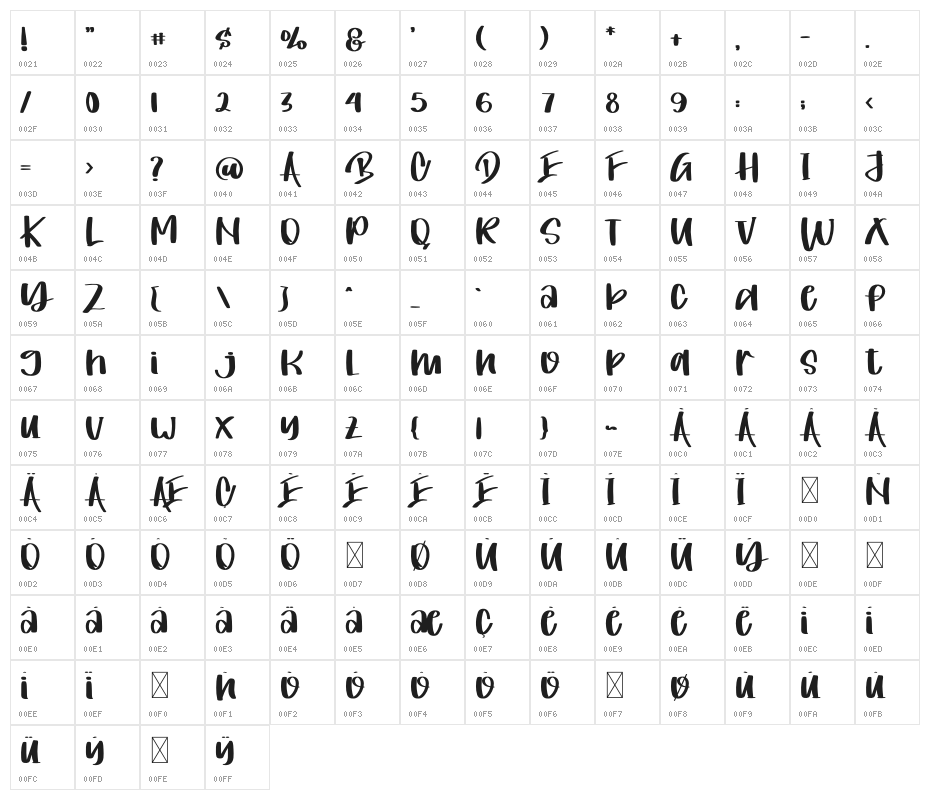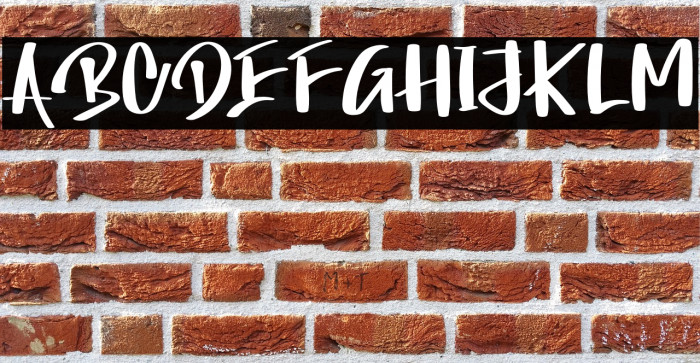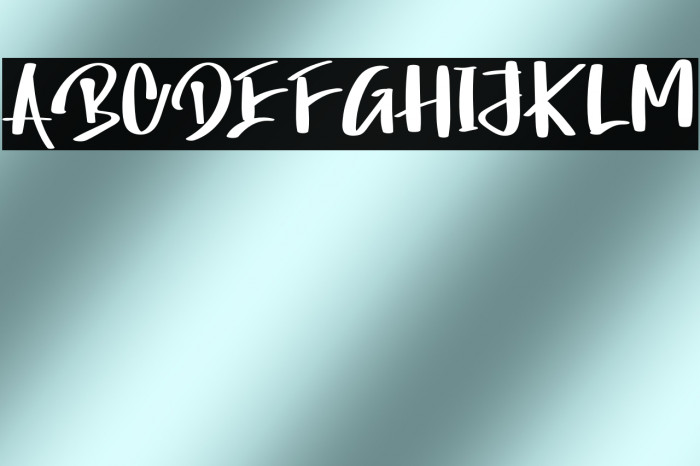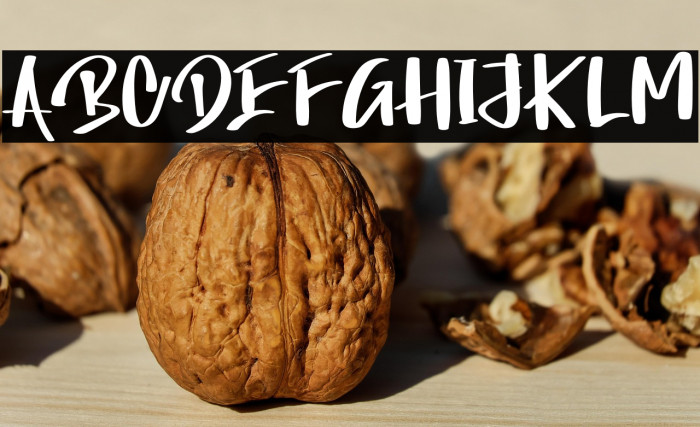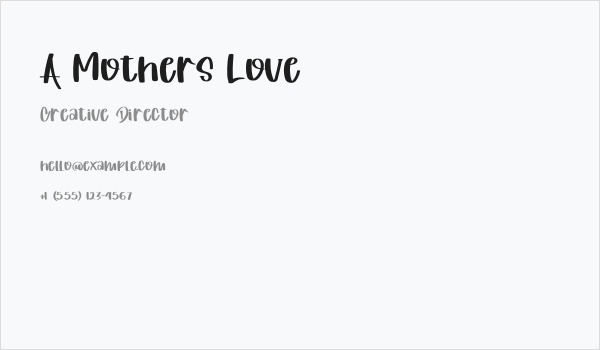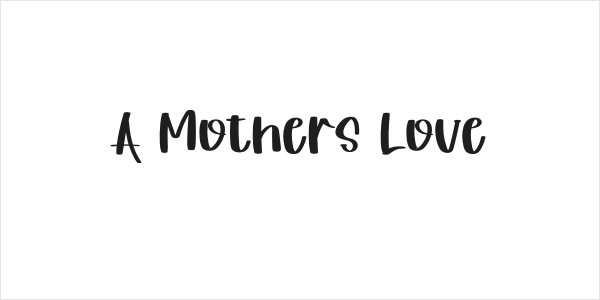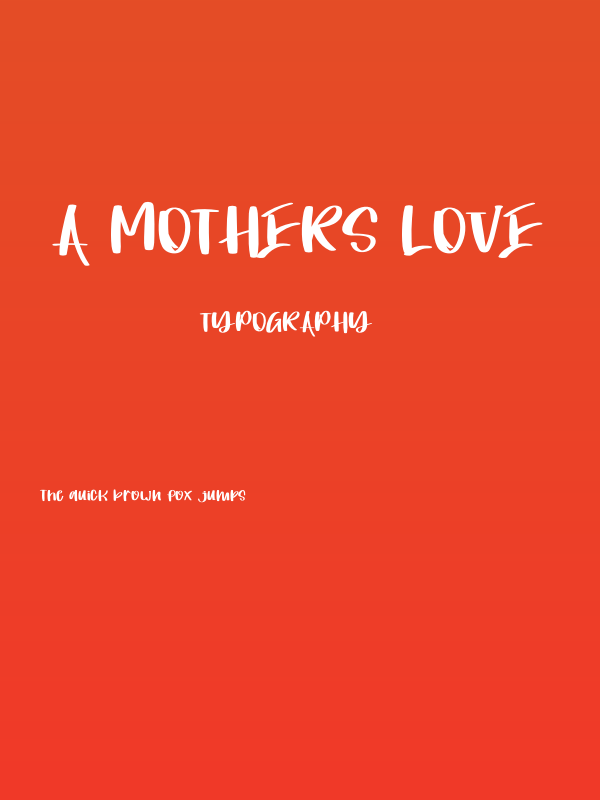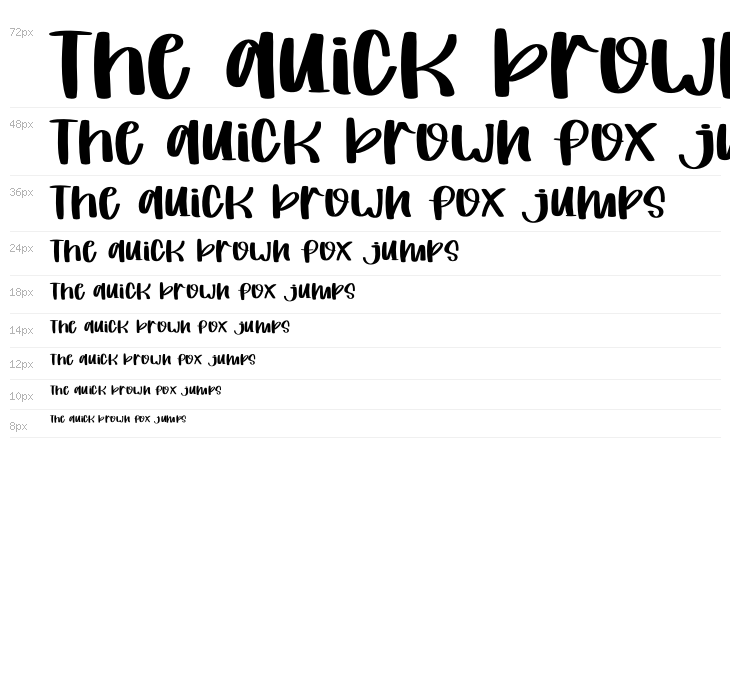
A Mothers Love Font
A Mothers Love Description
This font exhibits a bold and expressive handwritten style, characterized by its fluid and dynamic strokes. The uppercase letters are crafted with a playful yet elegant flair, featuring varying stroke widths that add a sense of movement and energy. The lowercase letters maintain this lively aesthetic, with some characters displaying unique loops and curves that enhance the font's overall charm. Numbers and special characters are designed to match the font's whimsical nature, making it suitable for creative and artistic projects. The font's boldness ensures it stands out, while its handwritten quality adds a personal touch.
| Proposed Projects | Ideal for greeting cards, invitations, branding, and social media graphics where a personal and artistic touch is desired. |